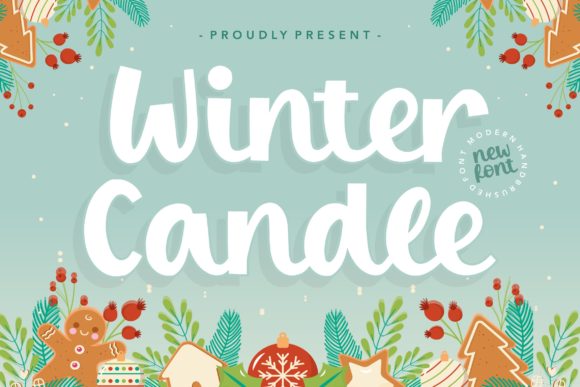
Introducing the Winter Candle Font: A Symphony of Style for Fashion Designers
In the realm of fashion design, where creativity reigns supreme, lies the Winter Candle Font—a modern hand-brushed font that dances across your designs like a delicate snowflake. With its enchanting allure, the Winter Candle Font weaves a spell, captivating all who behold its charm.
Embark on a journey of fashion expression unlike any other. The Winter Candle Font invites you to paint the canvas of your designs with a symphony of style. Its graceful strokes, reminiscent of a winter wonderland, will transform your creations into breathtaking masterpieces.
Fashion is a language spoken through fabric and design, and the Winter Candle Font is its enchanting vocabulary. Its characters dance and twirl, creating visual harmonies that sing of elegance and sophistication. Let your imagination soar as you craft logos that sparkle like snowflakes, labels that whisper sweet nothings, and packaging that will have customers swooning.
With the Winter Candle Font, your fashion designs will transcend the ordinary and take on an air of exclusivity. Its versatility knows no bounds, allowing you to create designs that cater to the most discerning clientele. From chic boutique collections to haute couture runways, the Winter Candle Font will leave an indelible mark of sophistication.
But it's not just fashion designers who can bask in the glow of the Winter Candle Font. If you're a creative soul yearning for a touch of magic, this font will awaken your inner artist. Whether you're crafting wedding invitations that ooze romance, designing social media posts that pop, or simply adding a dash of charm to your personal projects, the Winter Candle Font is your secret weapon.